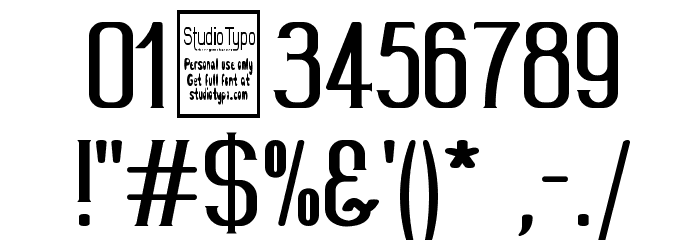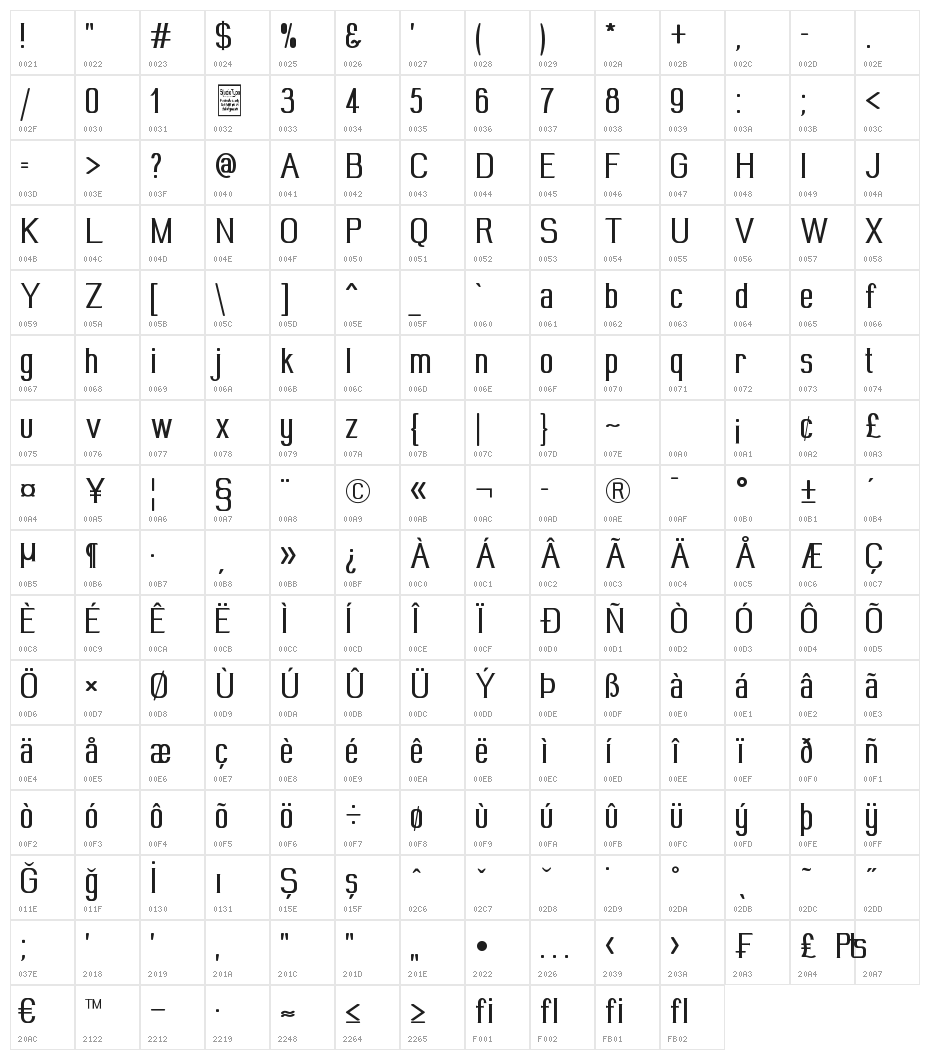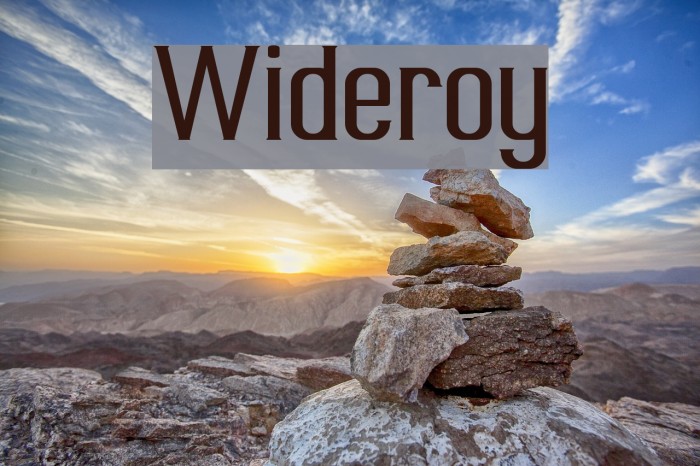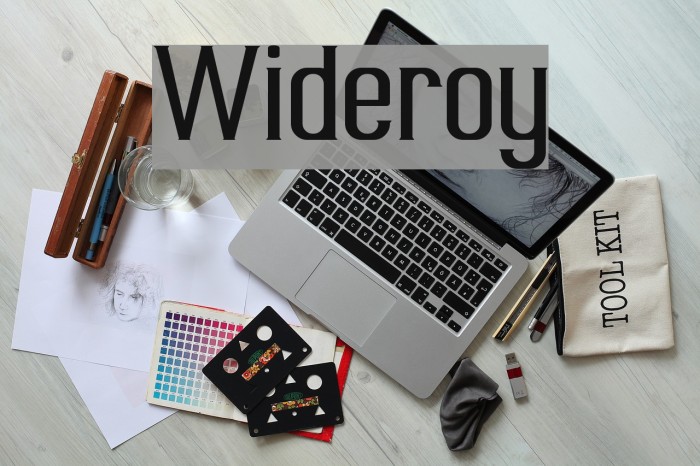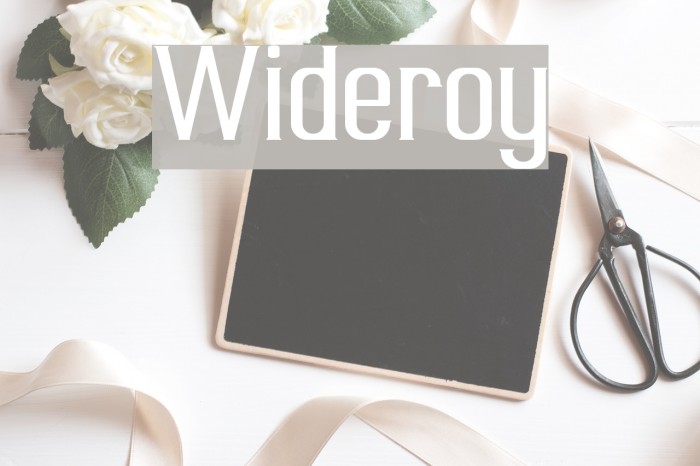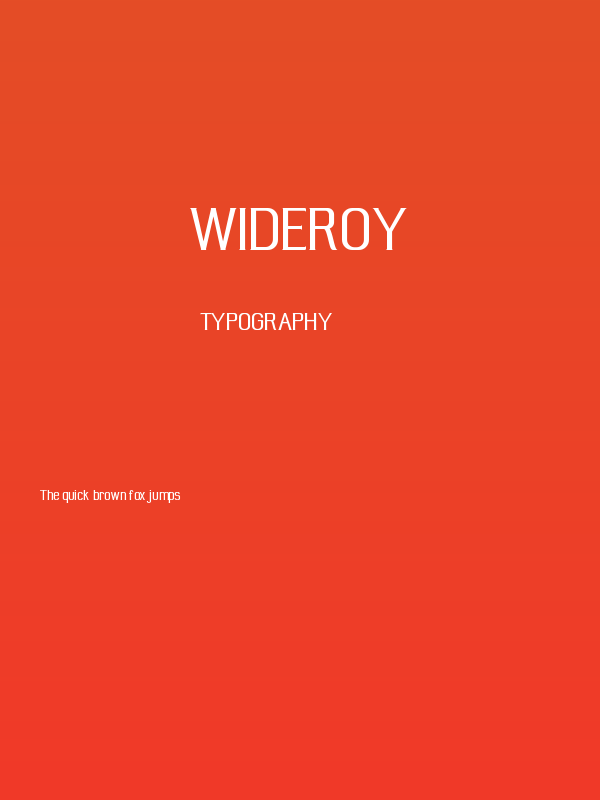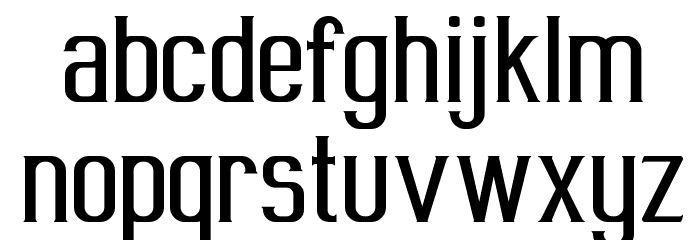
Wideroy Font
Wideroy Description
This font features a modern, geometric design with clean lines and a structured appearance. The uppercase letters are tall and slightly condensed, giving a sleek and professional look. The lowercase letters maintain a consistent height, with rounded edges that soften the overall feel. The numerals are uniform and align well with the alphabet, ensuring readability. Special characters are distinct and well-integrated, making this font versatile for various applications. Its balanced proportions and minimalistic style make it suitable for contemporary design projects.